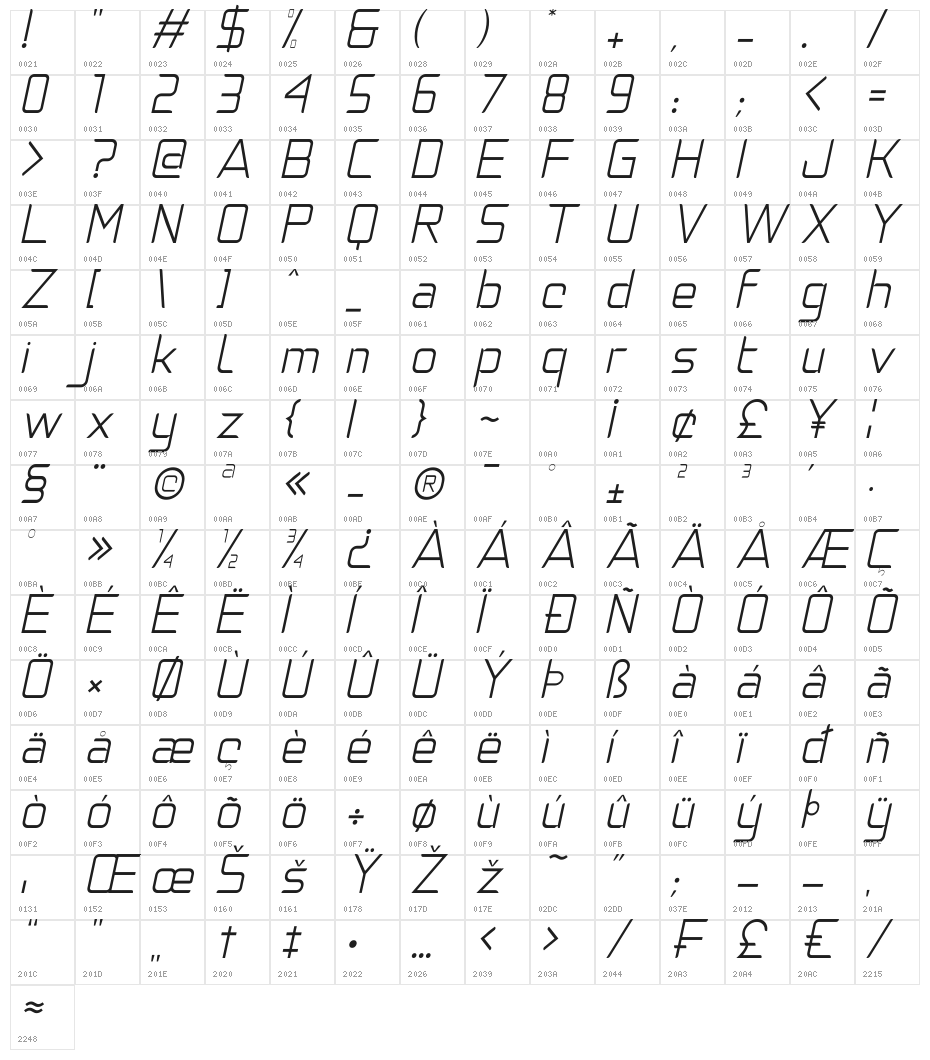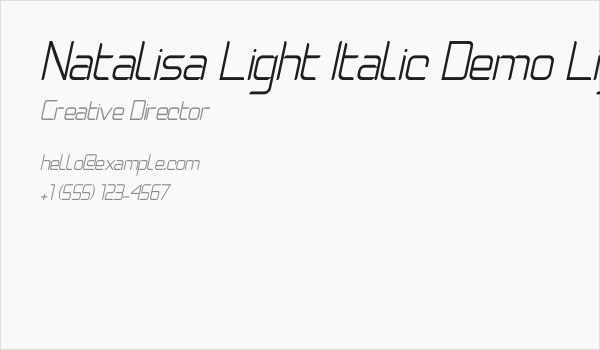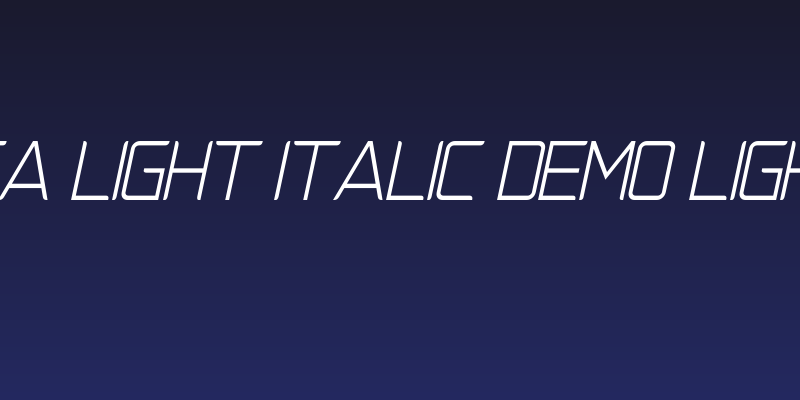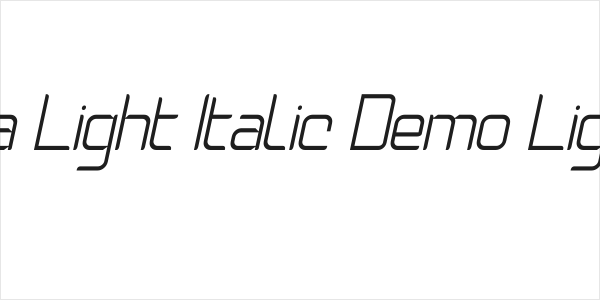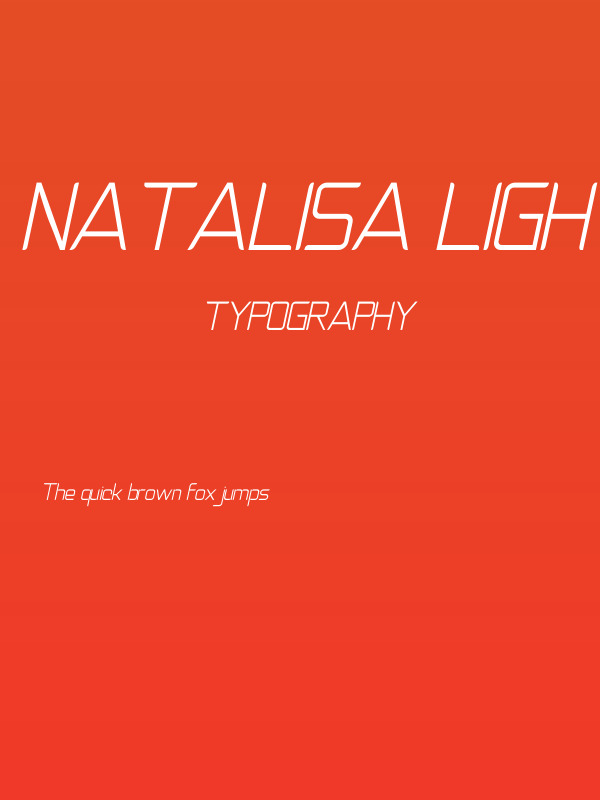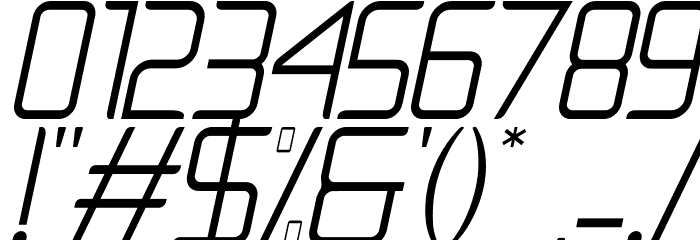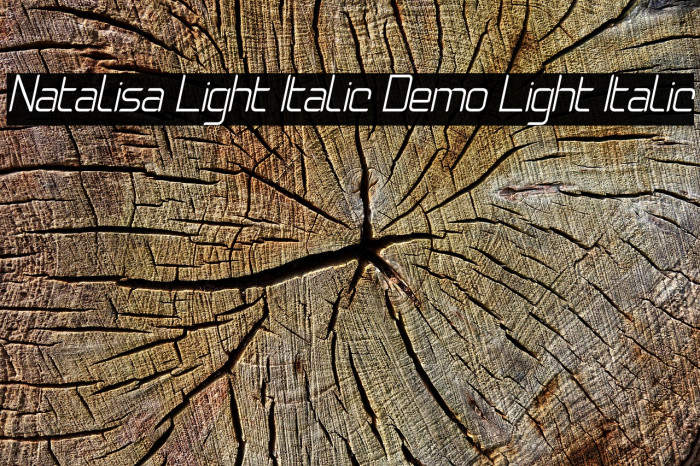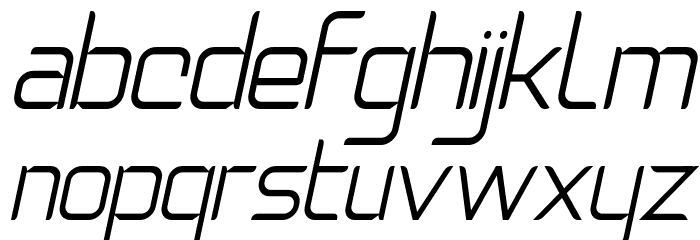
Natalisa Light Italic Demo Light Italic Font
Natalisa Light Italic Demo Light Italic Description
This font features a sleek and modern design with a light and italicized style. The characters are elongated and slightly condensed, giving a streamlined and futuristic appearance. The strokes are consistent in weight, contributing to a uniform and clean look. The overall design is minimalistic, with a focus on clarity and readability. The special characters maintain the same aesthetic, ensuring a cohesive appearance across all glyphs. This font is ideal for projects that require a contemporary and elegant touch.
Natalisa
| Use Case | Headlines, Logos, Branding |
| Proposed Projects | Ideal for branding, tech-related designs, modern advertising, and sleek website headers. |